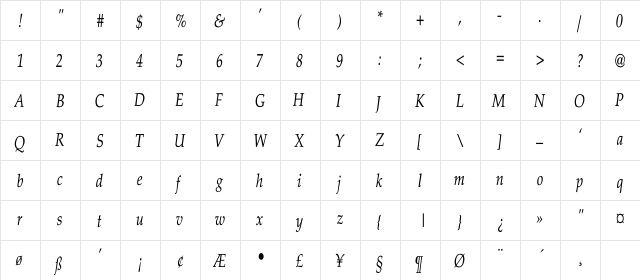
Palatino-Thin-Italic Cn Regular
Design Context for Palatino-Thin-Italic Cn Typeface
Palatino-Thin-Italic Cn offers clean, dependable letterforms without strong stylistic allegiance, making it a practical choice for designers who need flexibility. Its italic angle brings a sense of urgency and motion to the letterforms. The delicate stroke weight brings airiness and refinement to layouts.